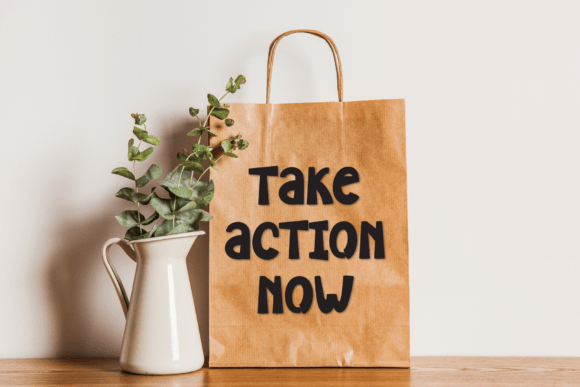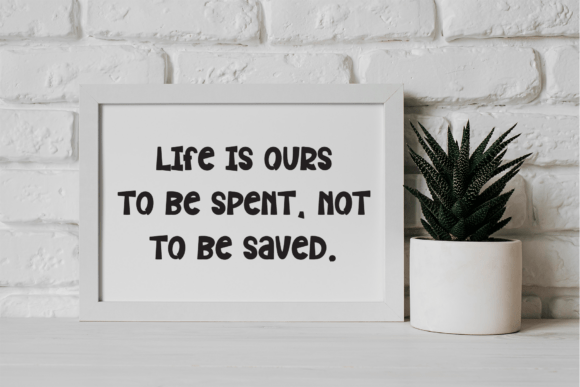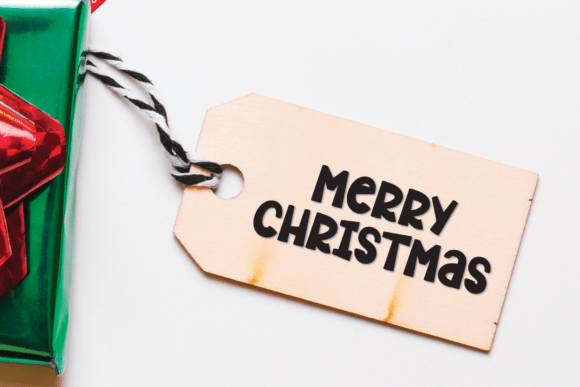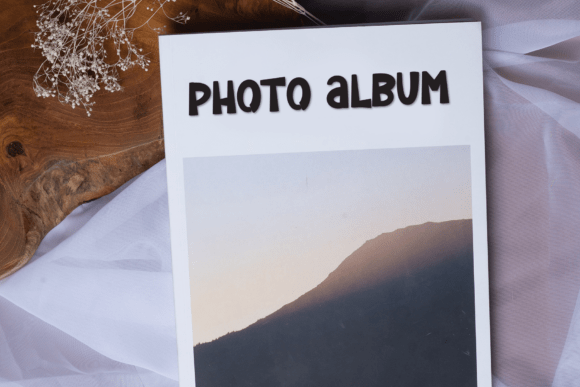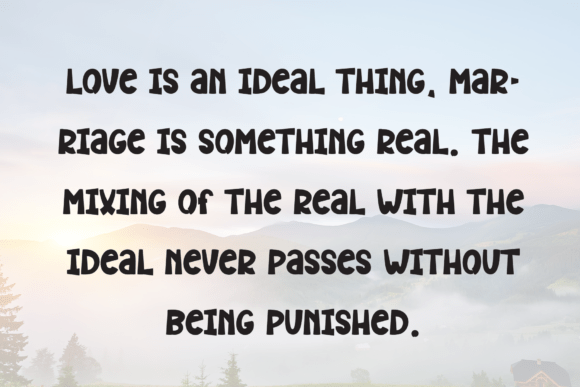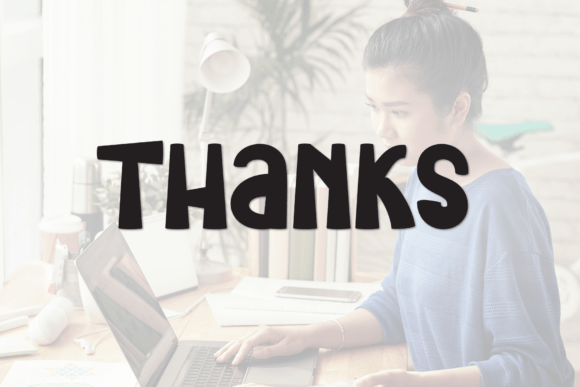
The Perfect Font for the Creative Soul
Have you ever stared at a blank page, waiting for inspiration to strike? The cursor blinks impatiently, and your mind is a jumble of ideas, but none seem quite right. Suddenly, a burst of creativity hits, and the words start flowing. This is the moment when the Designer Font comes alive – a celebration of the creative process that’s as bold as it is beautiful.
The Designer Font is more than just a typeface; it’s a statement. Its thick, blocky letterforms and unexpected curves make it a standout choice for anyone looking to make a lasting impression. Whether you’re a designer, artist, or entrepreneur, this font is the perfect way to express your unique personality and style.
Designer Font Key Features
- Unique Characteristics: The font features a unique blend of modern and vintage elements, with intricate details and subtle texture, making it perfect for designers who want to add a touch of sophistication to their projects.
Designer Review: “Designer Font”
Overall, I was excited to dive into “Designer Font”, a highly-regarded font among design circles. ✨ One of the things that stood out to me was its excellent legibility, making it perfect for body text and larger displays. The font’s clean lines and modern aesthetic also lend themselves well to a variety of design applications.
- Legibility: The font is highly readable, making it perfect for body text and larger displays.
- Modern Aesthetic: The clean lines and minimalistic design make it suitable for a range of applications.
- Flexibility: The font is available in a range of weights, making it versatile for use in various design contexts.
However, I did encounter some limitations with “Designer Font”. ⚠️ One of the main issues I faced was the lack of expressive nuance in the font’s upper-case letters. This made it difficult to convey a sense of personality or emotion through typography.
- Lack of Expressive Nuance: The upper-case letters can come across as somewhat flat and lacking in personality.
Overall, I would say that “Designer Font” is a solid choice for designers looking for a clean and modern font. While it may not be perfect, it has a lot to offer in terms of legibility and versatility.